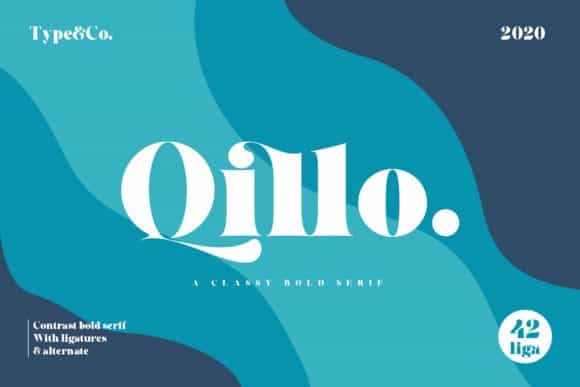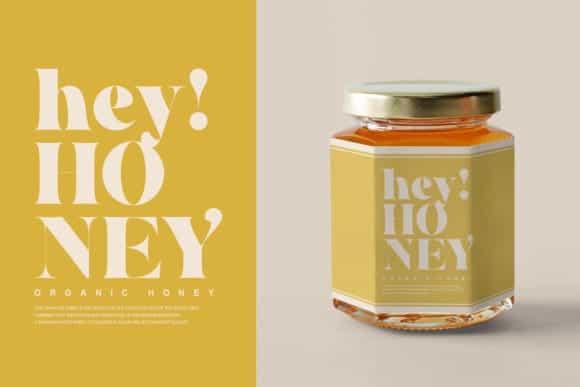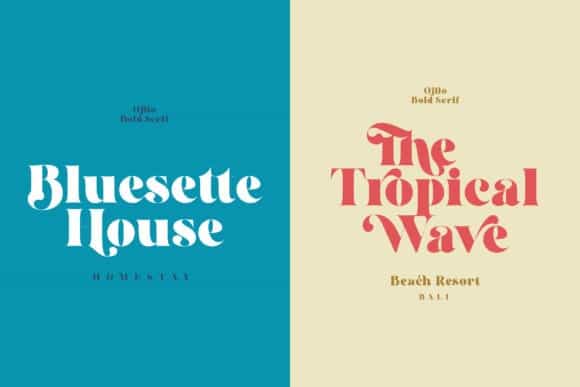
Qillo is a wedge serif font that will definitely grab your attention. A little bit old-fashioned and a little bit new, Qillo is perfect for logos, editorial or web design. The special, sharp serifs and the thin strokes put together create a bold mid century architectural feel.